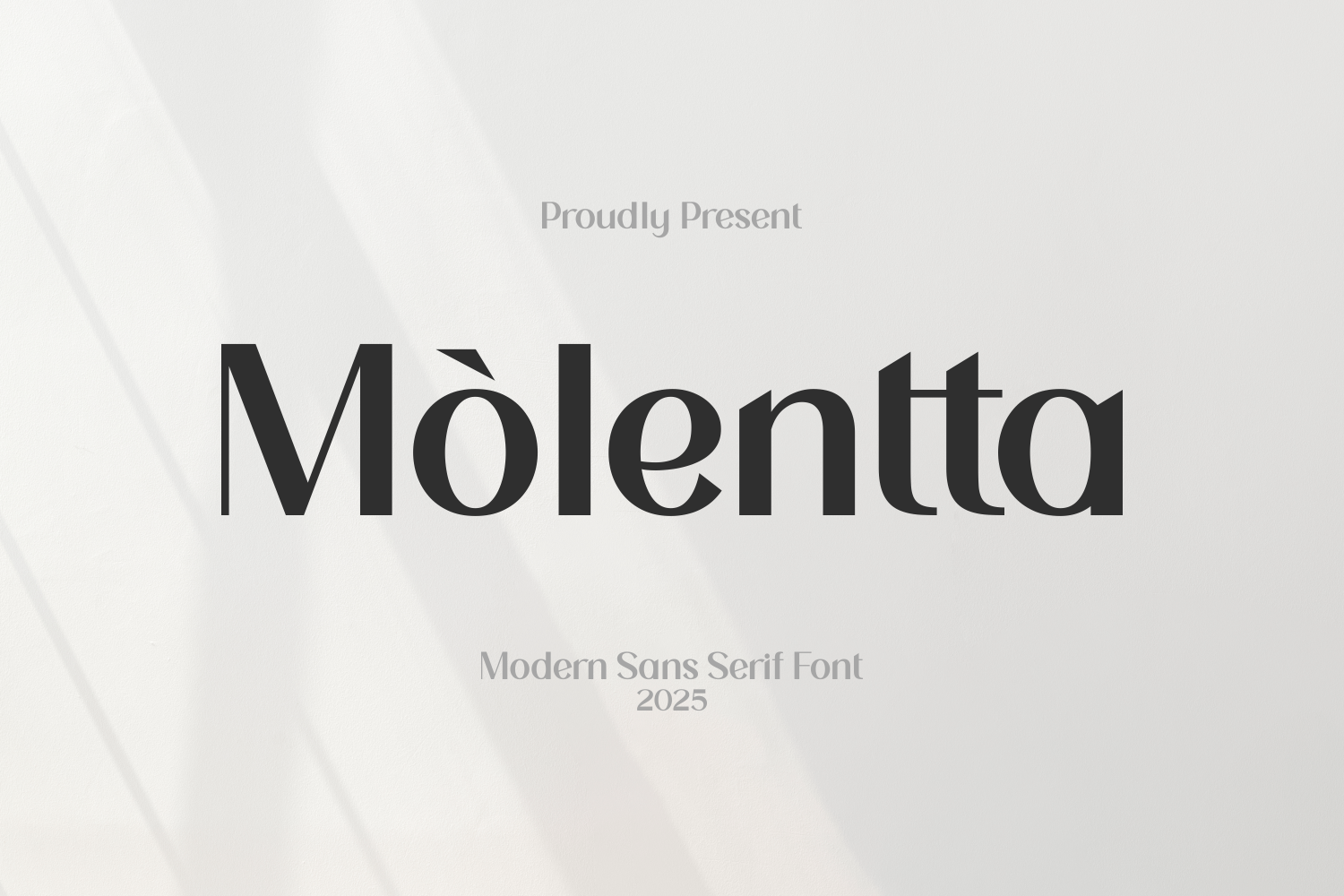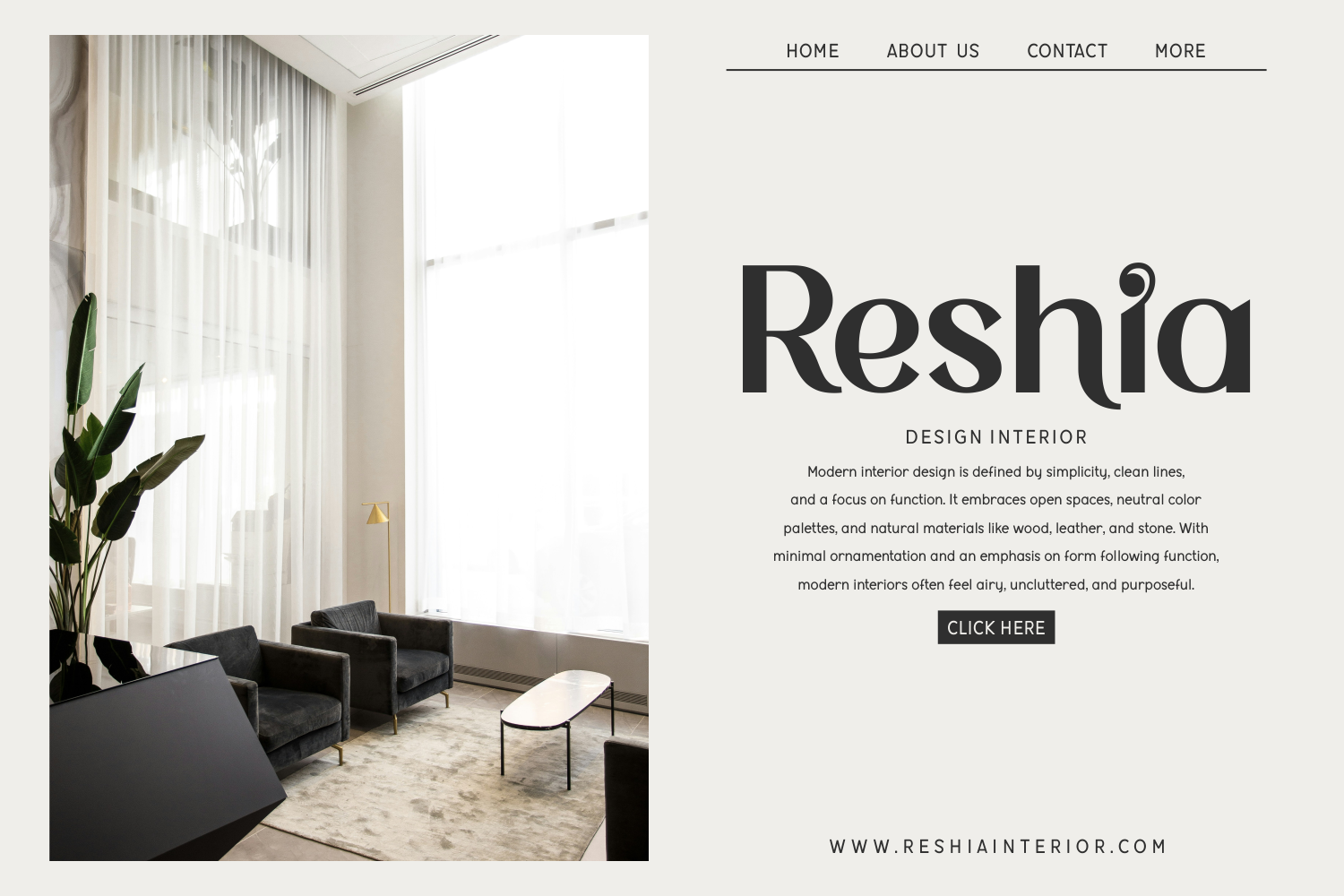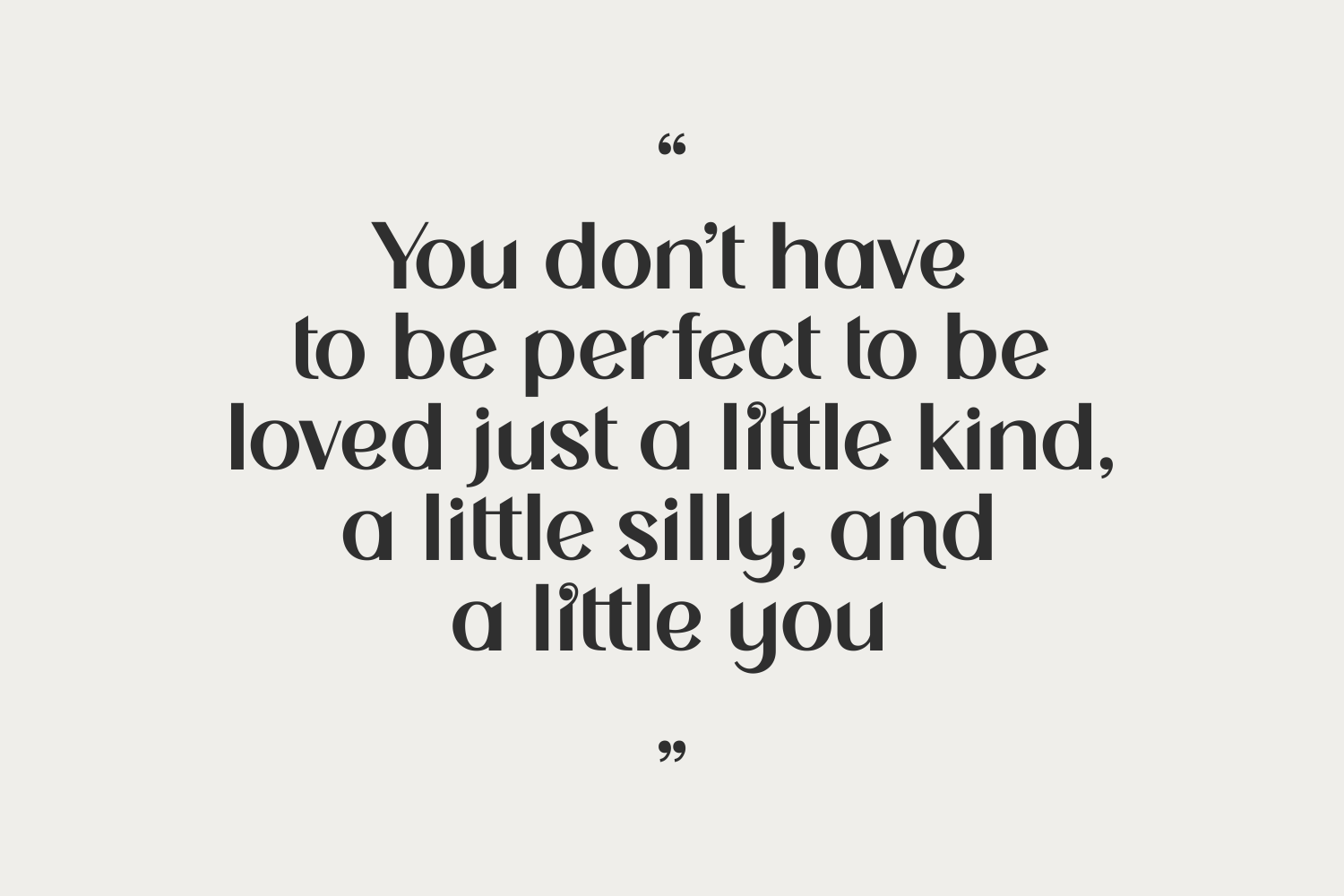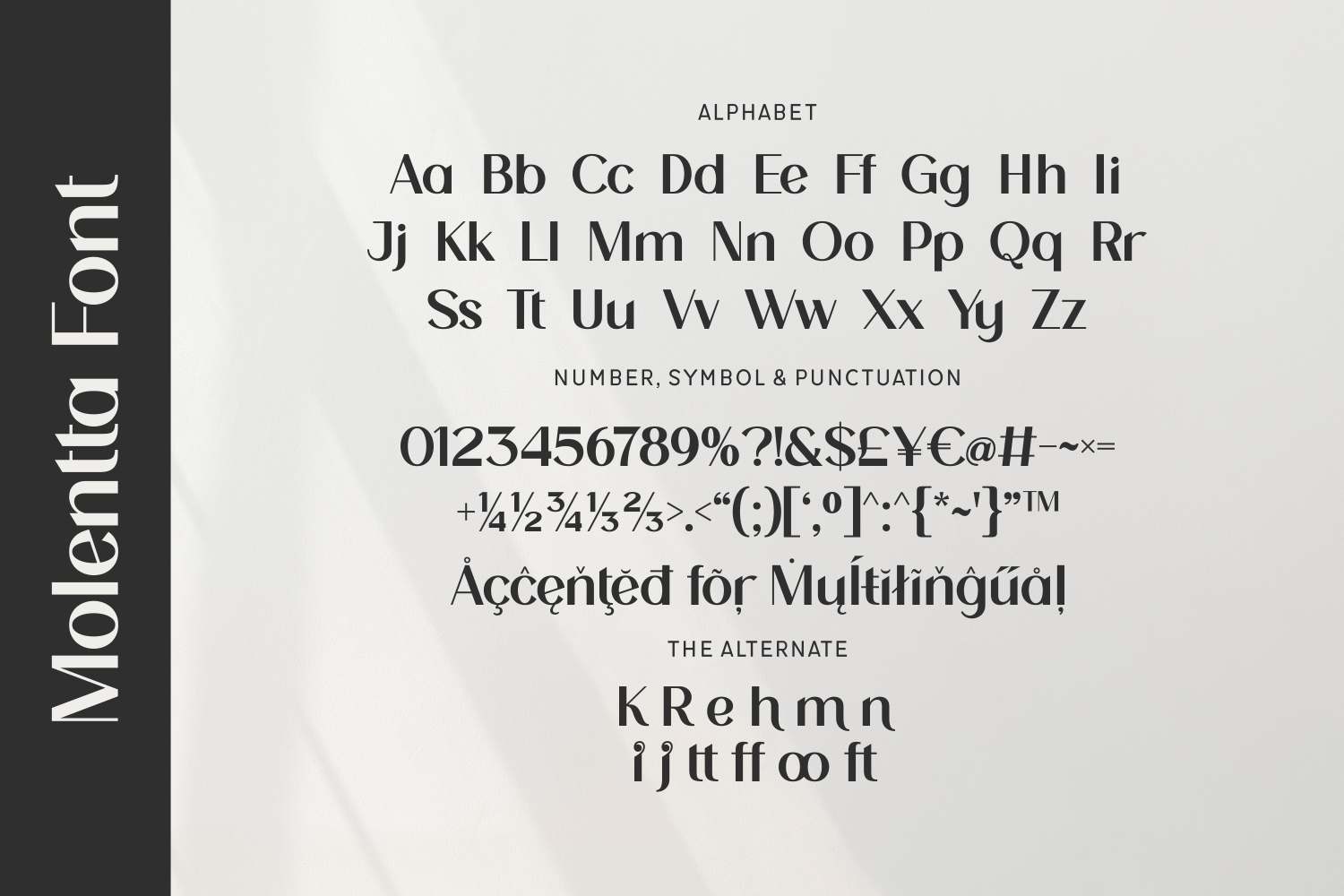
Mòlentta is a refined sans serif typeface that blends minimalism with graceful curves. Ideal for luxury branding, fashion editorials, and elegant product packaging, it evokes sophistication with a modern aesthetic.